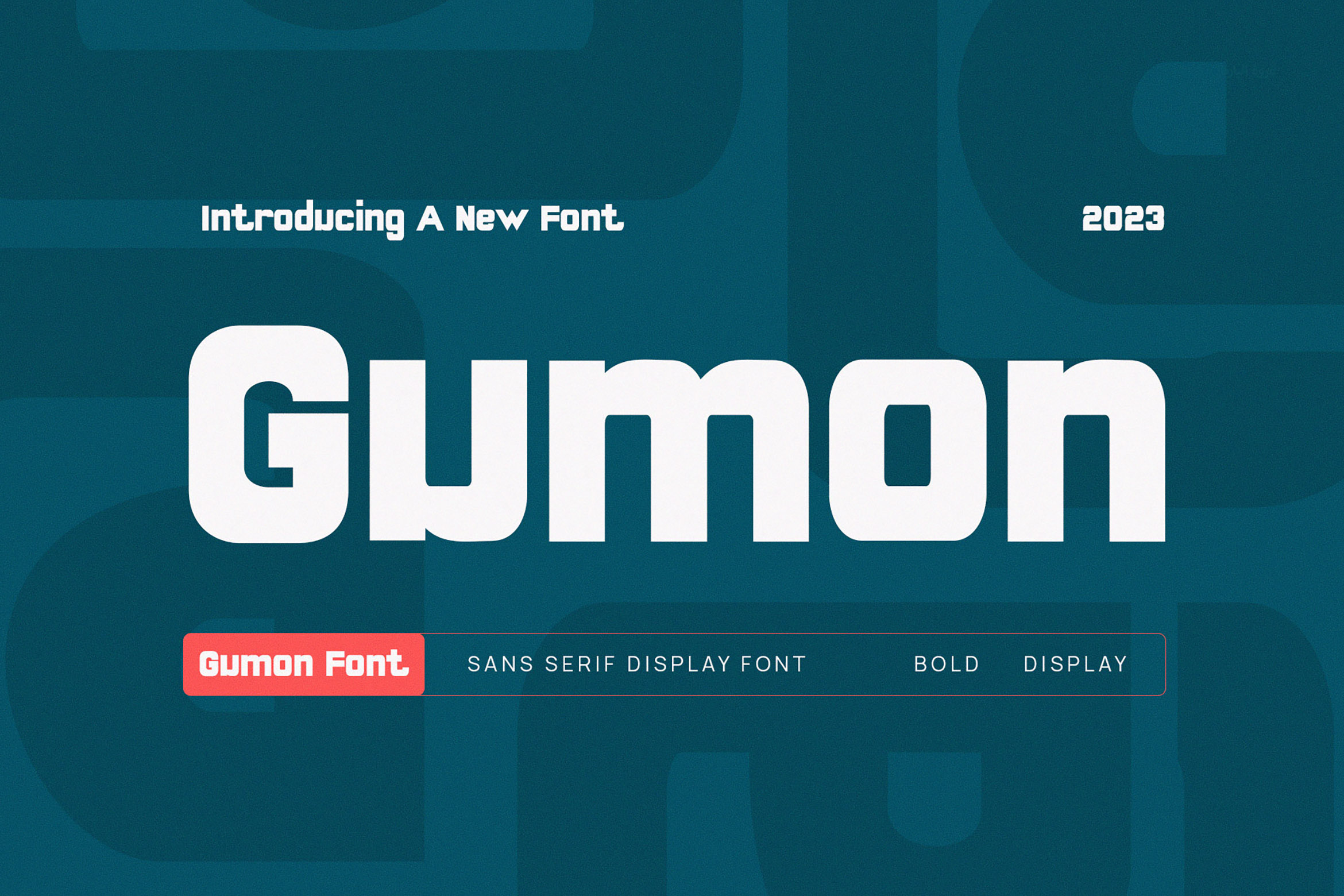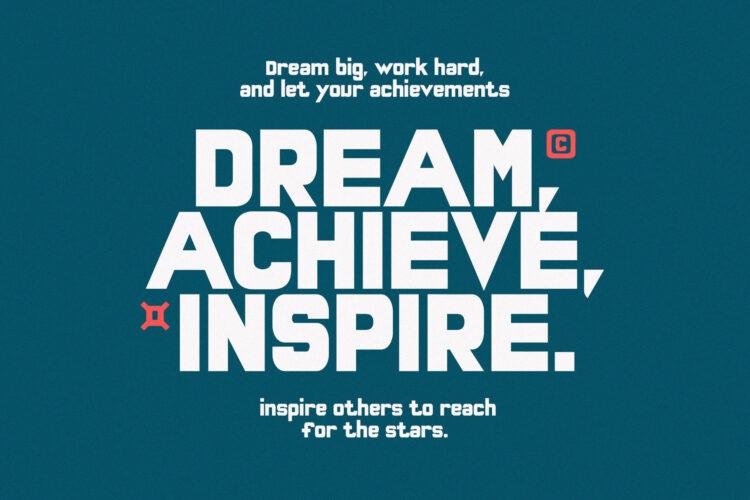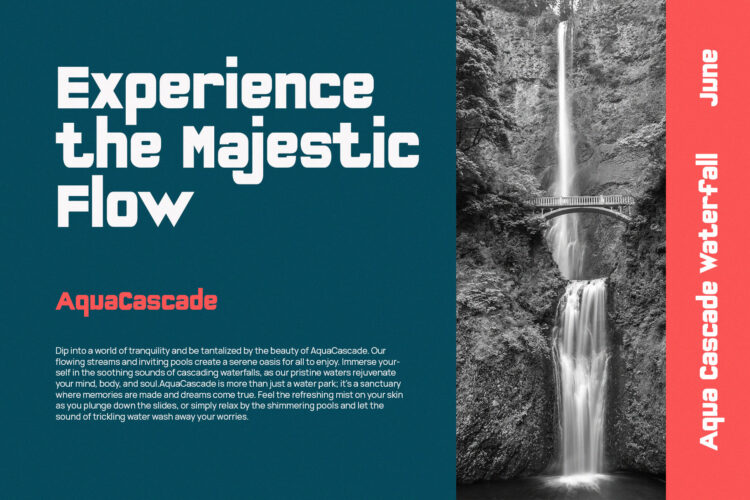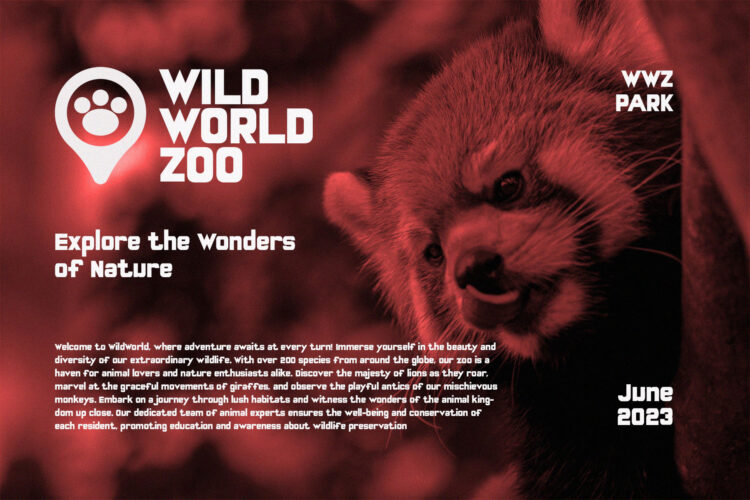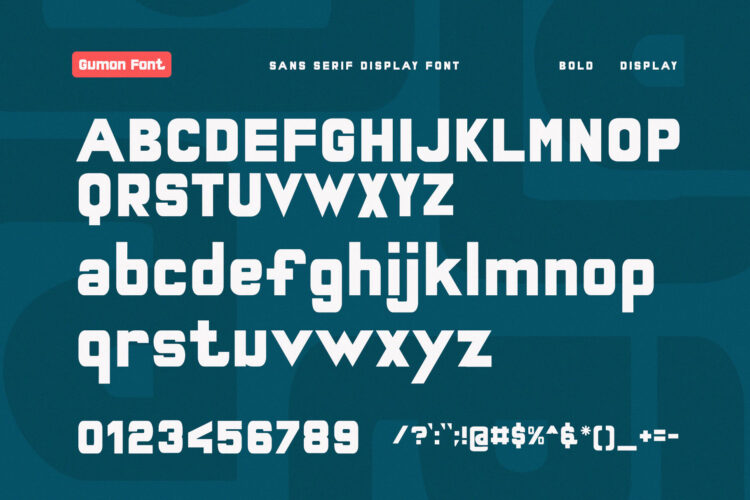
Introducing our new Gumon, modern sans serif font with elegant style this is perfect for branding, logos, invitation, magazines, product packaging and more.
Gumon – Modern Sans Serif